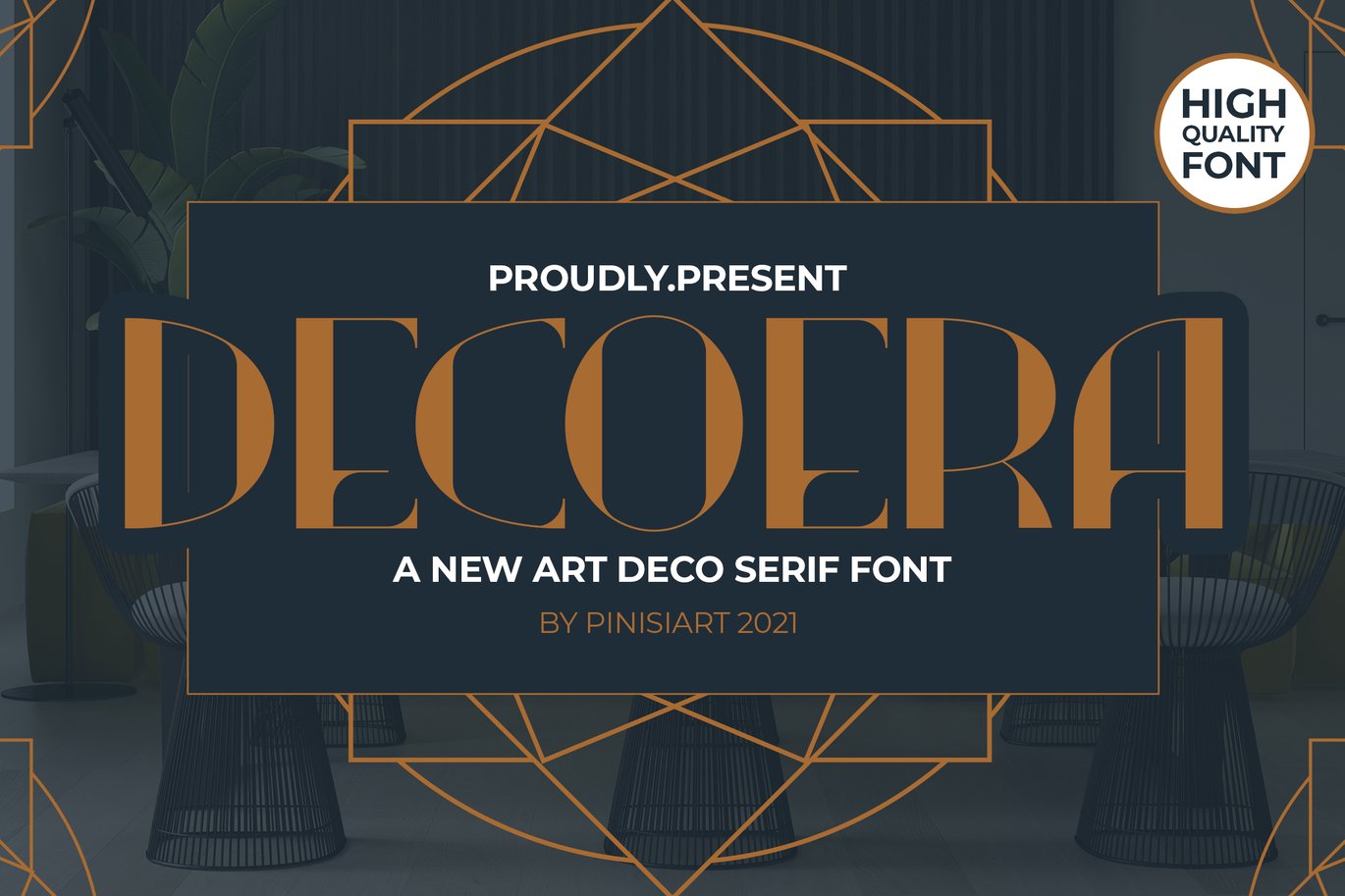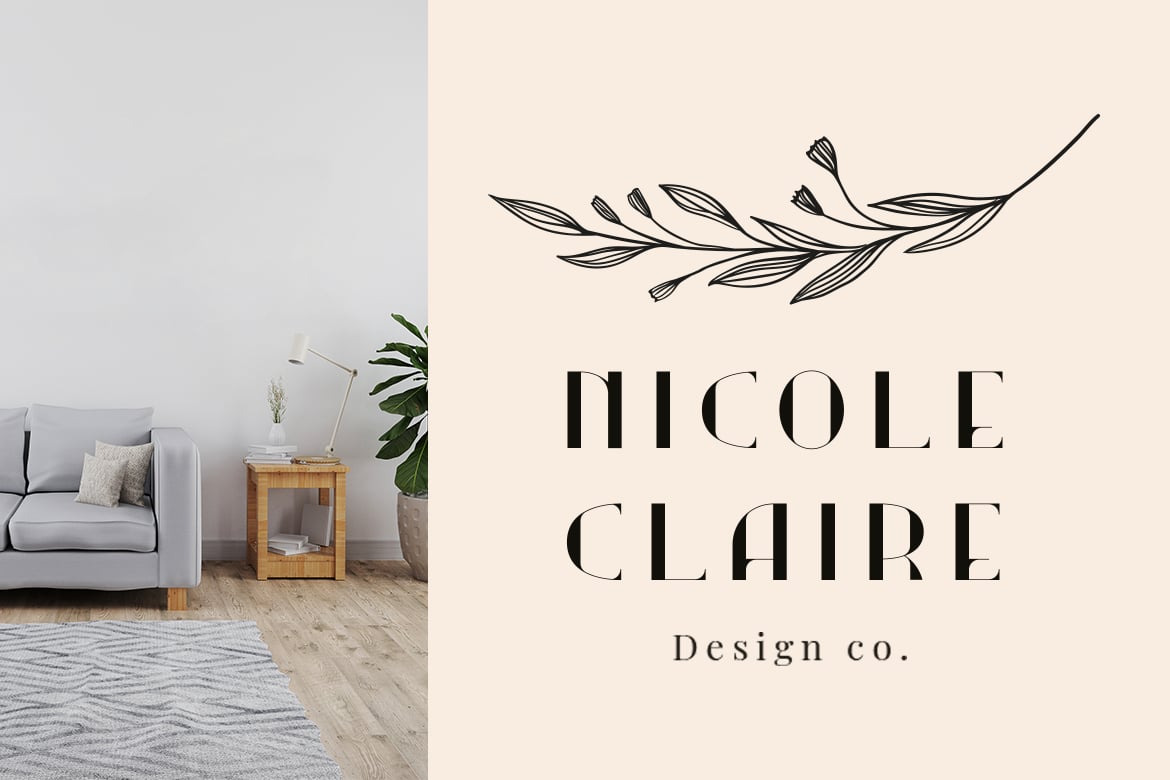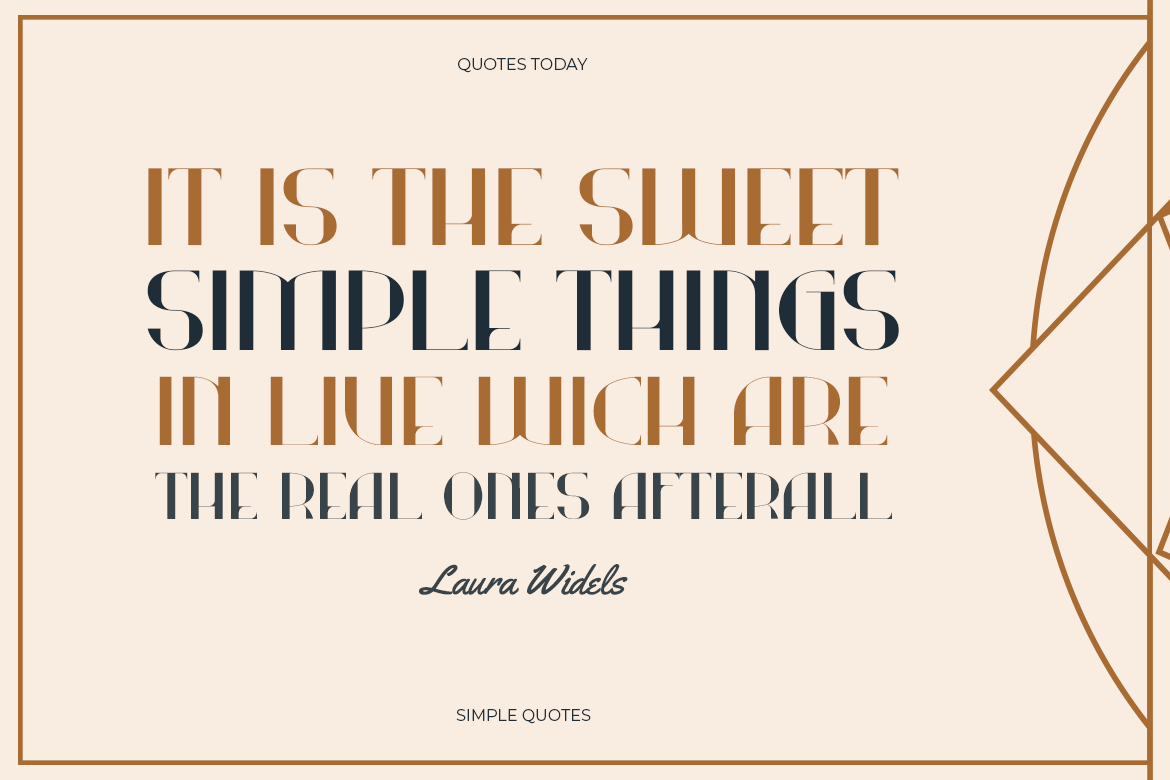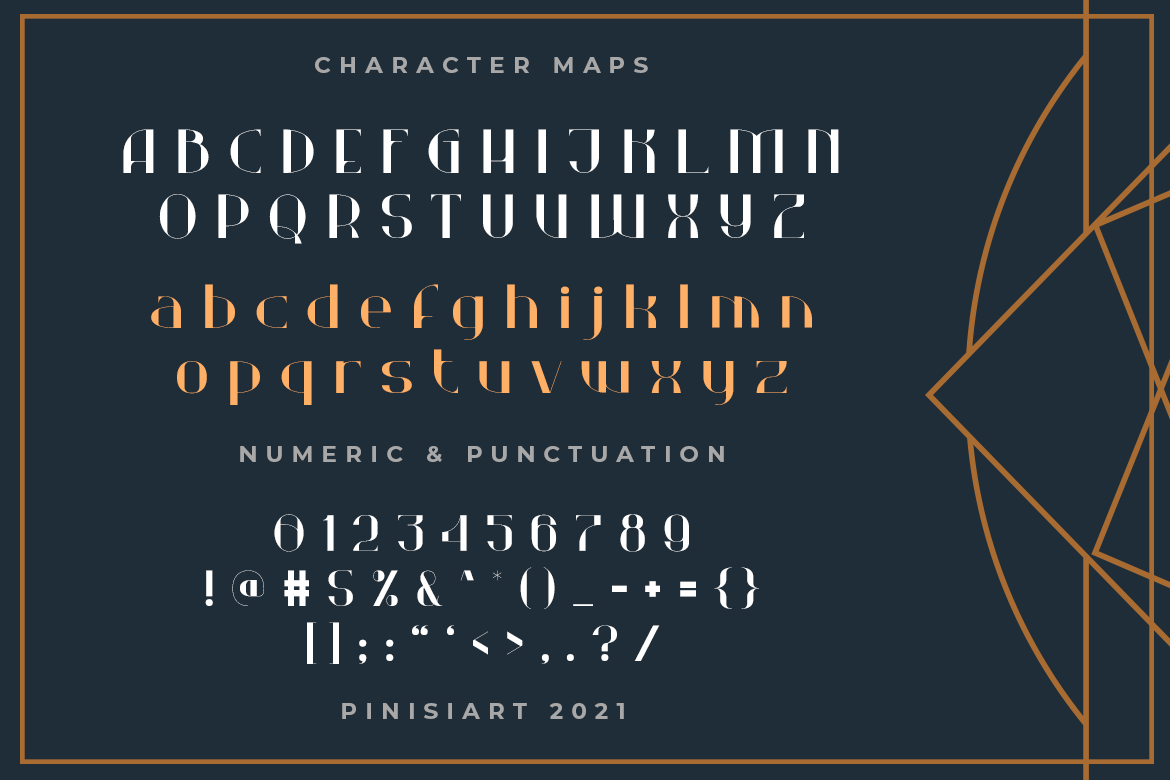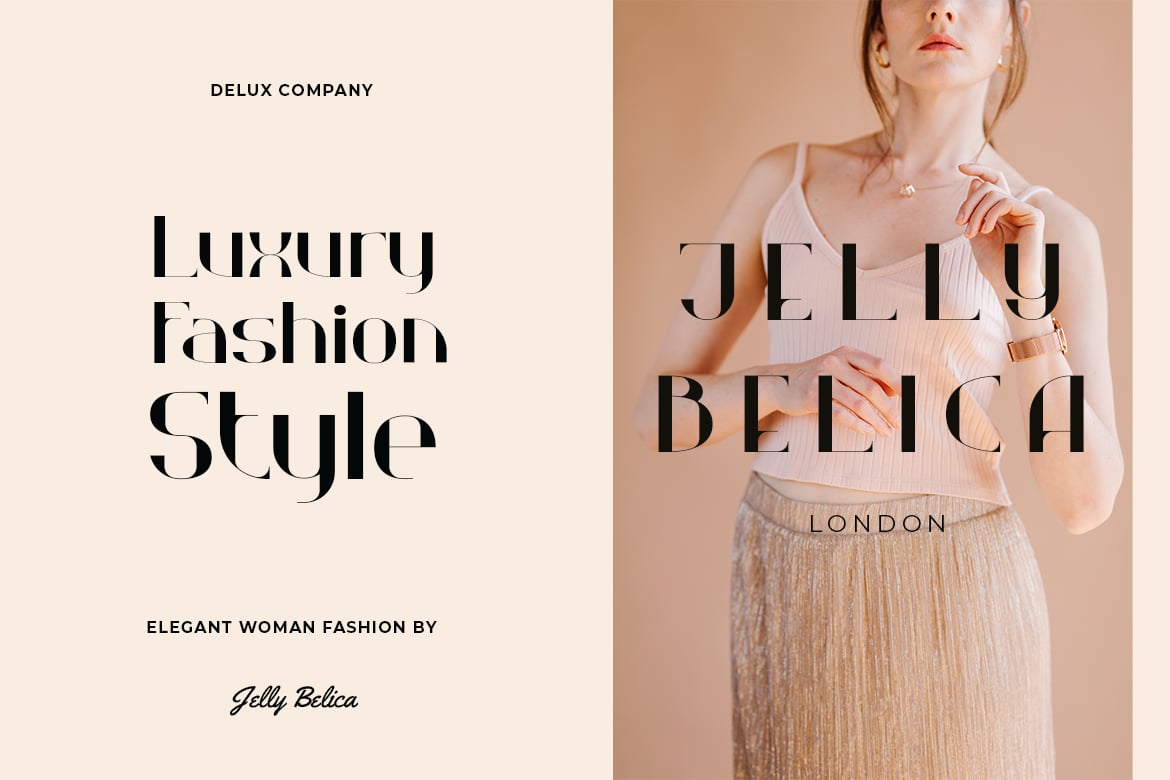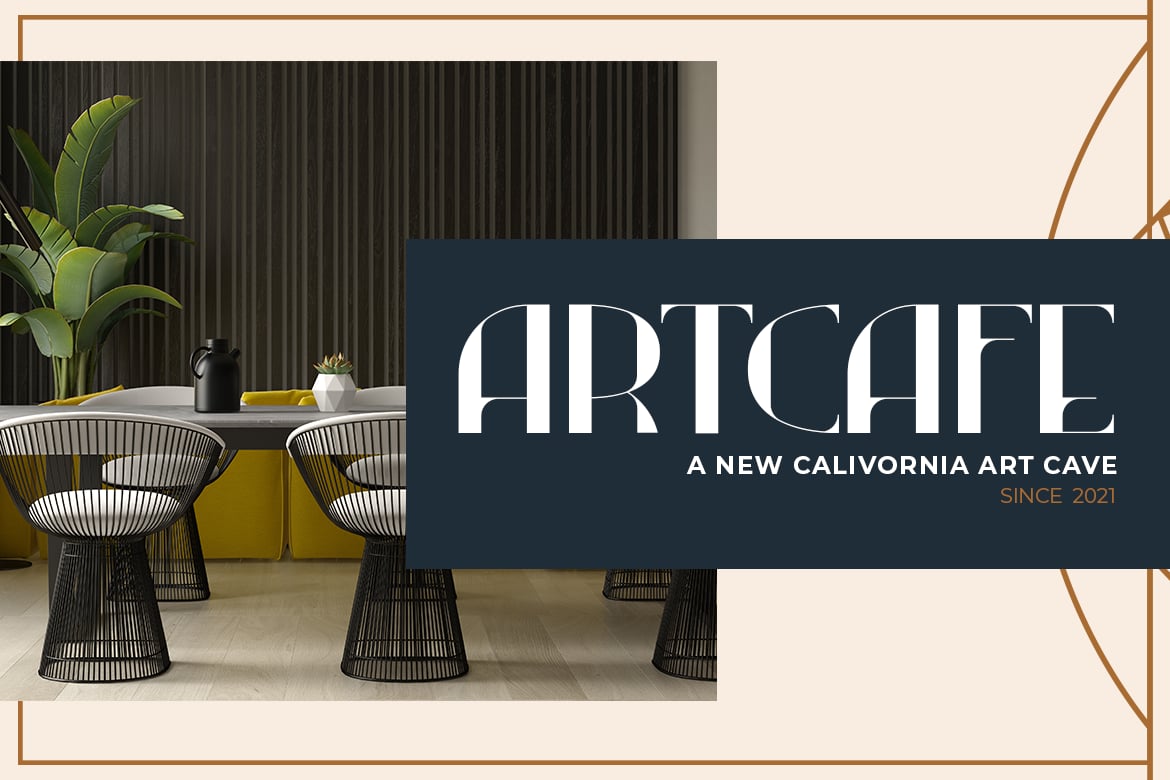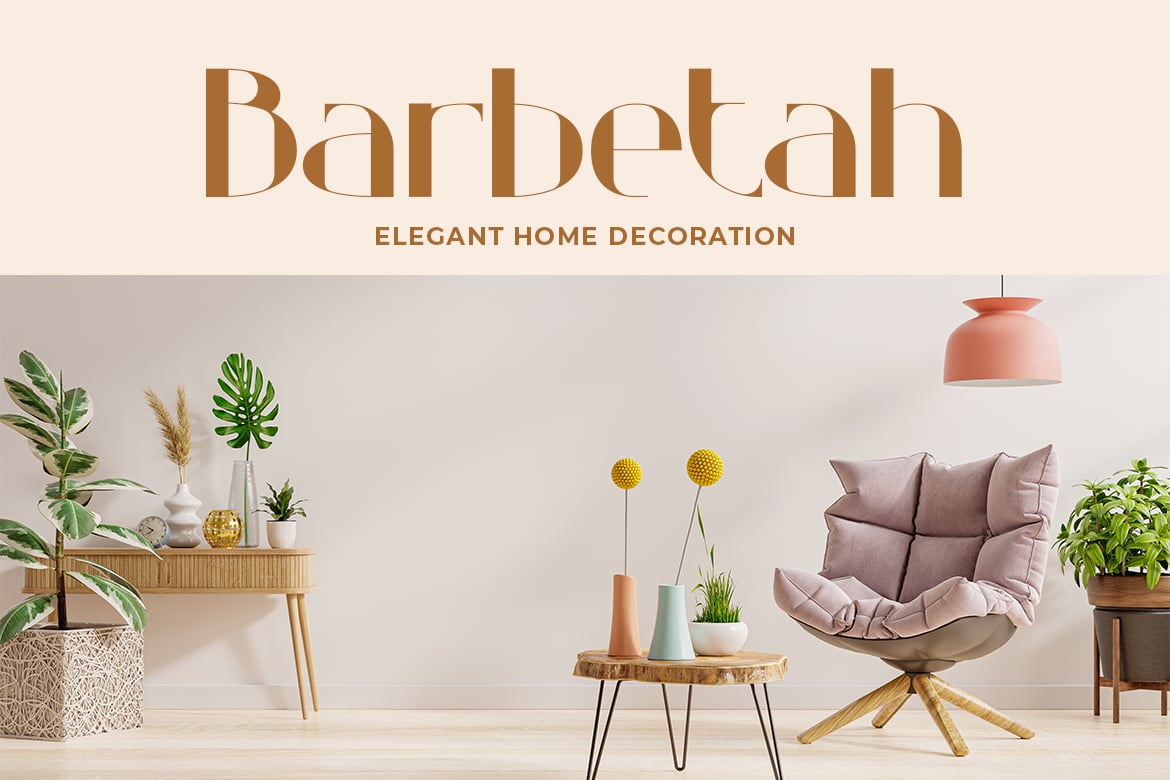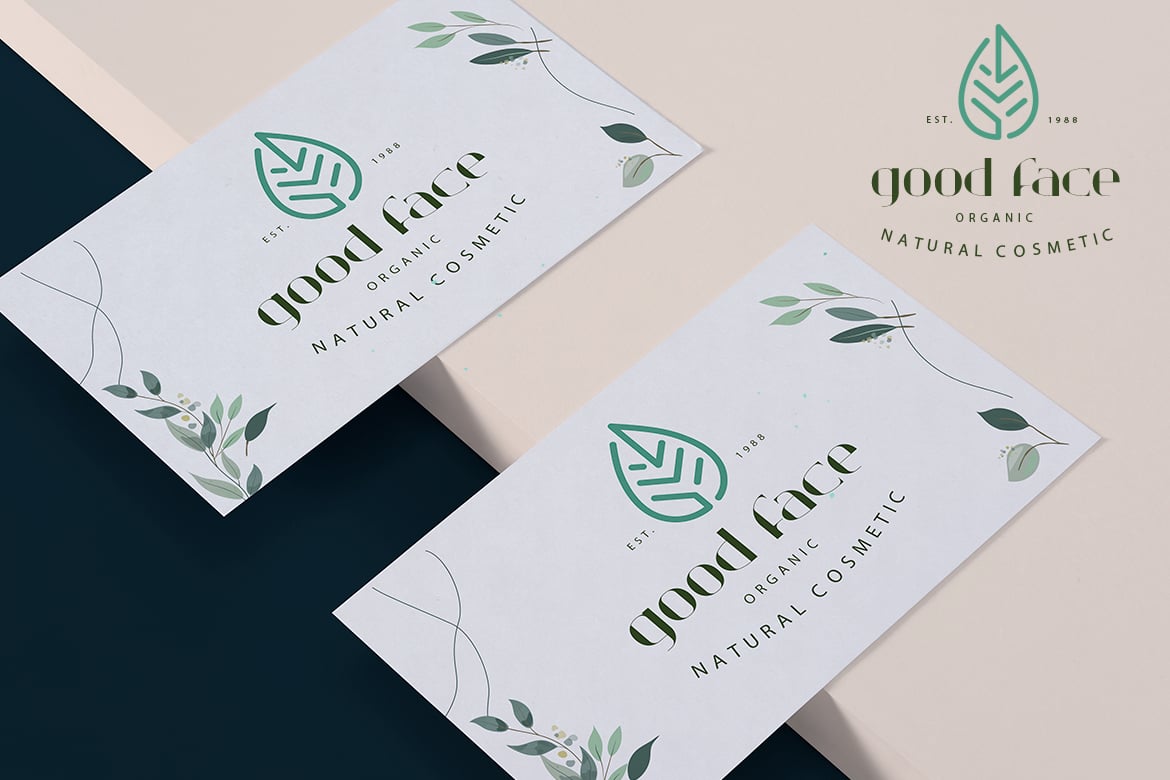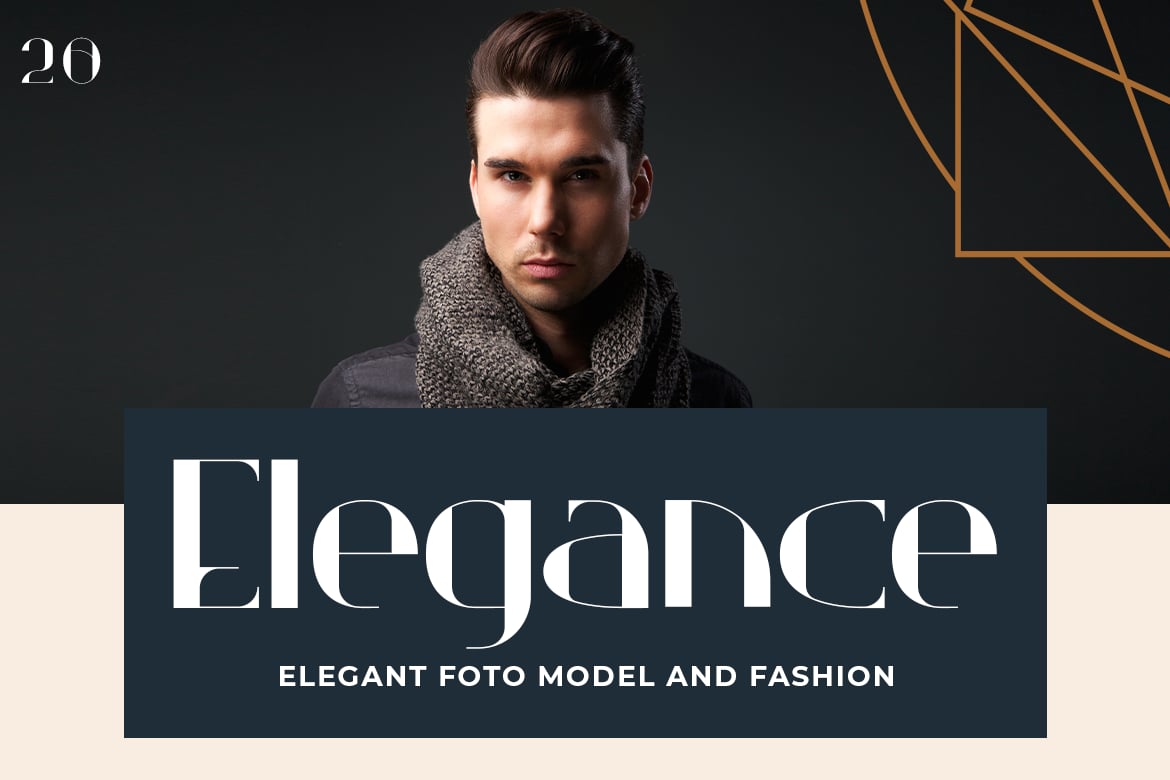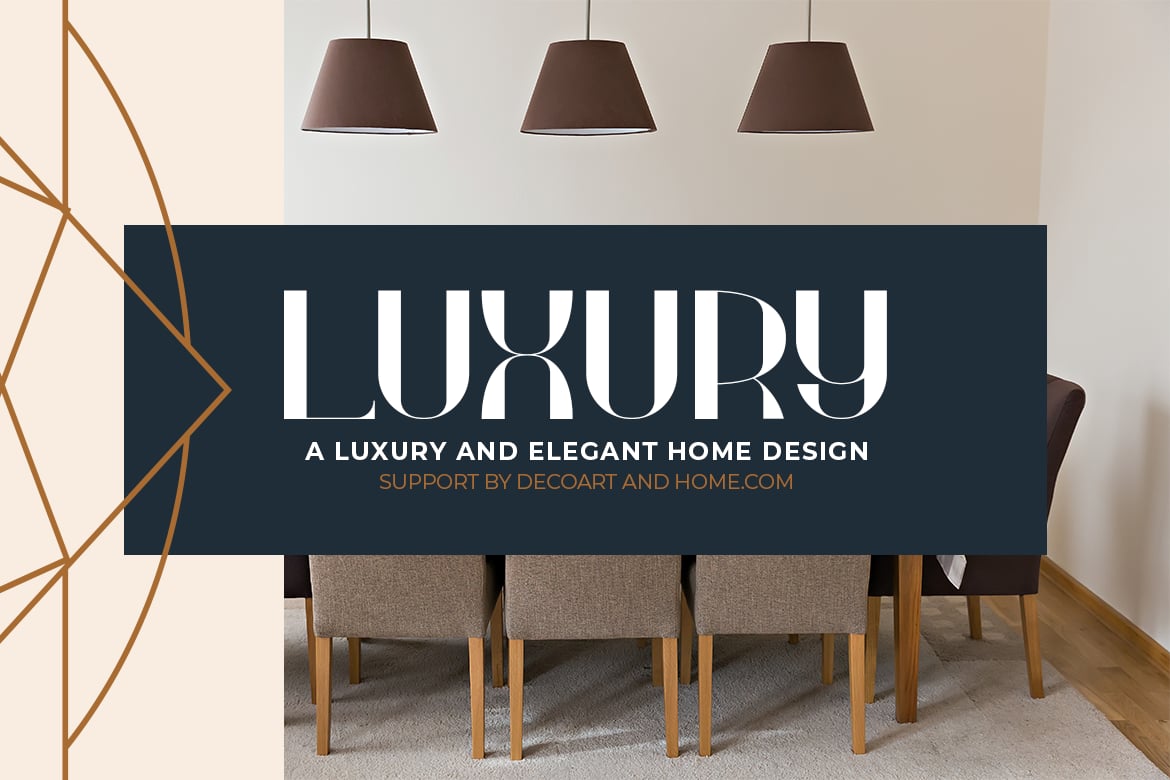
DECOERA – art deco font
DECOERA is all about classic, elegance, and high class vintage feel all over it. The era is a DECOERA
Suit perfectly for high-end market audiences, poster, movie title, classic restaurant/ cafe menu, magazine, youtube covers, youtube thumbnails, social media page covers and so on…